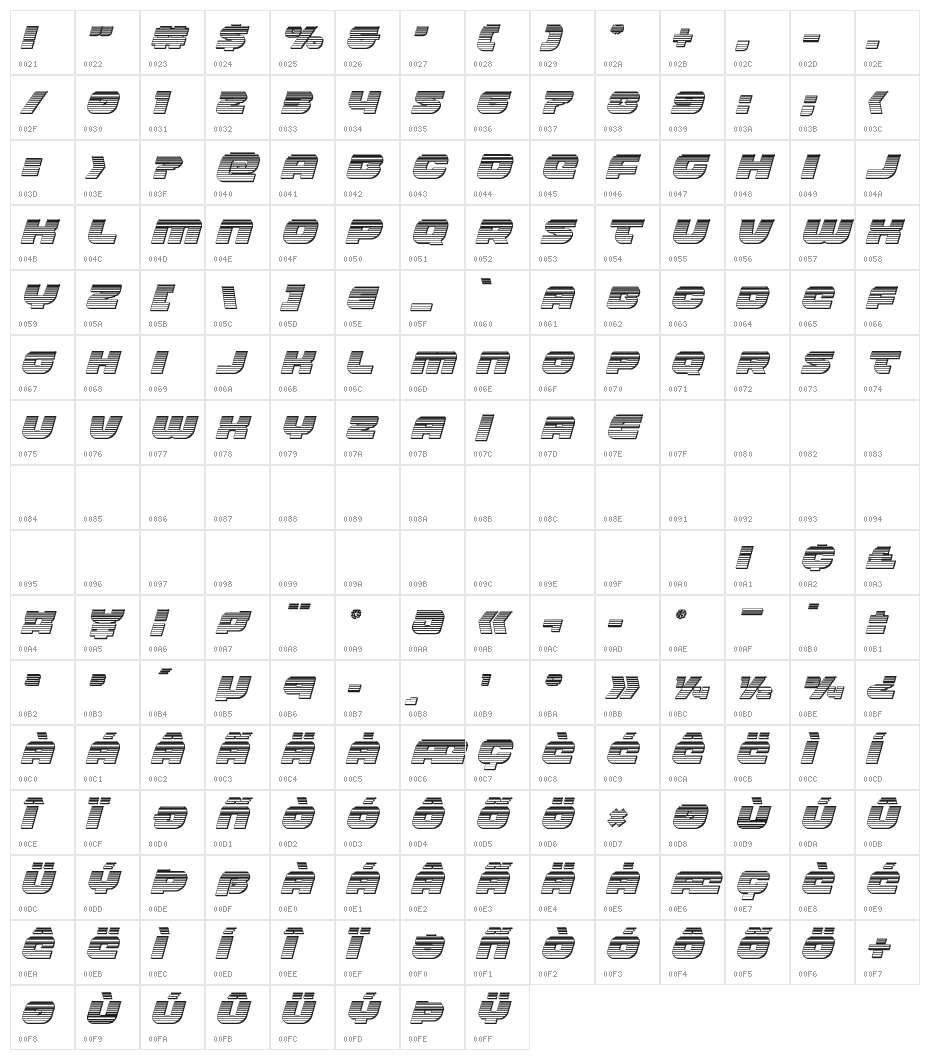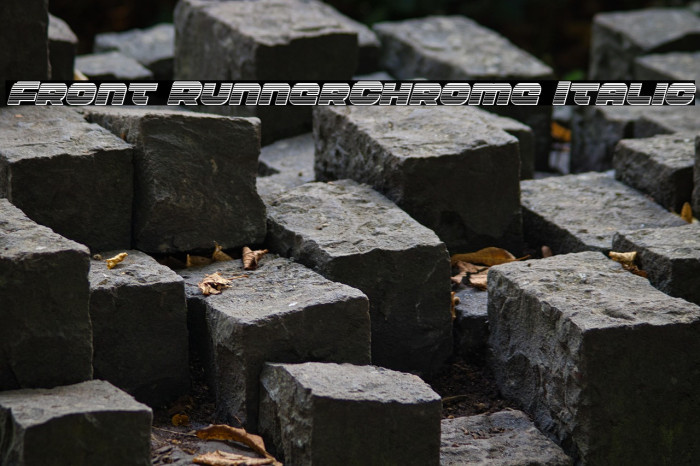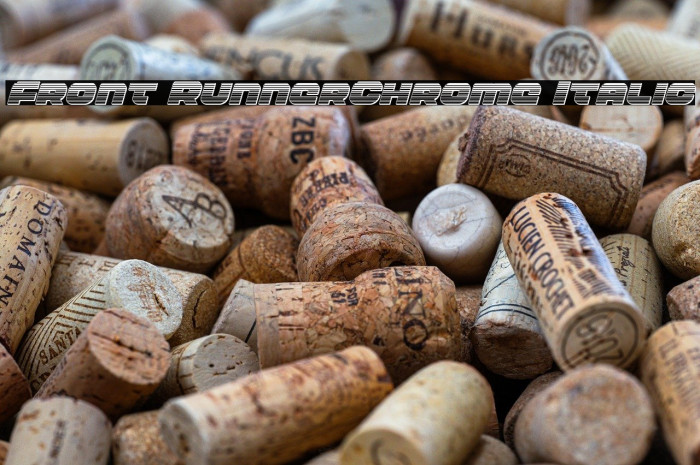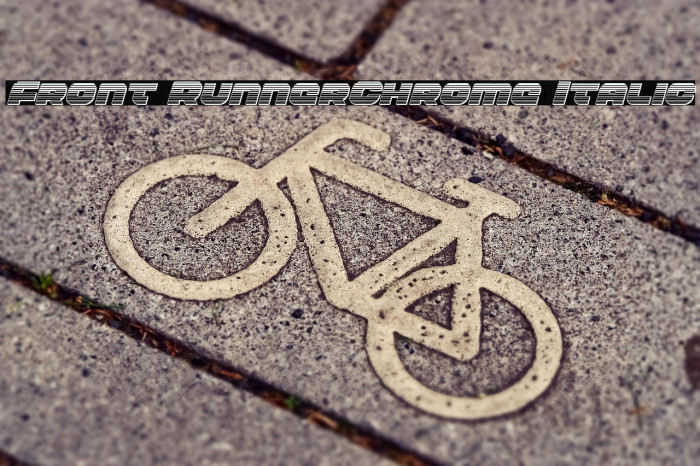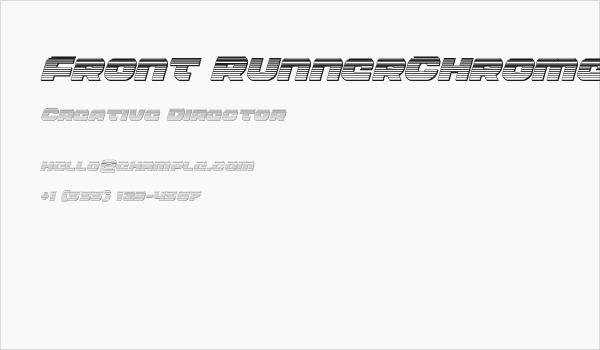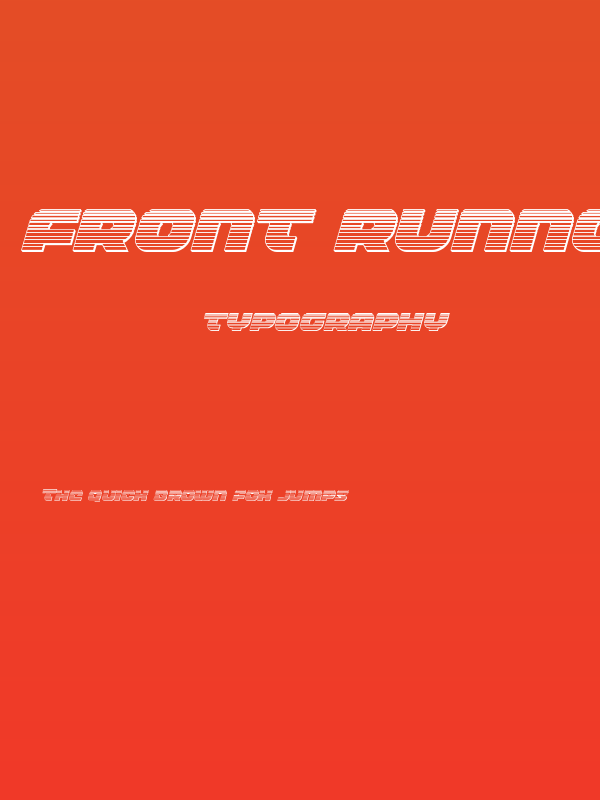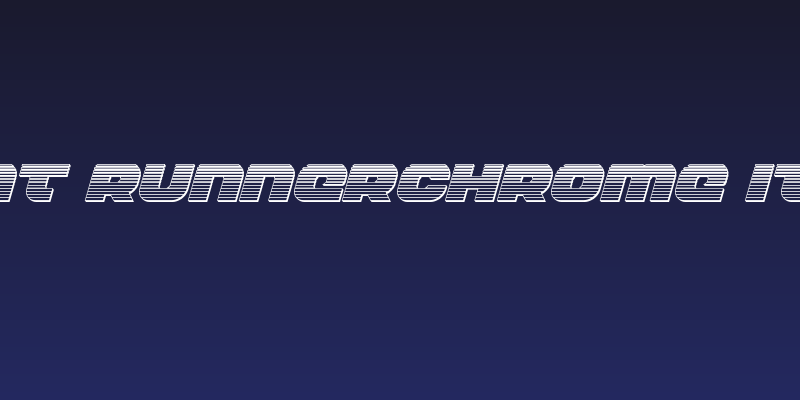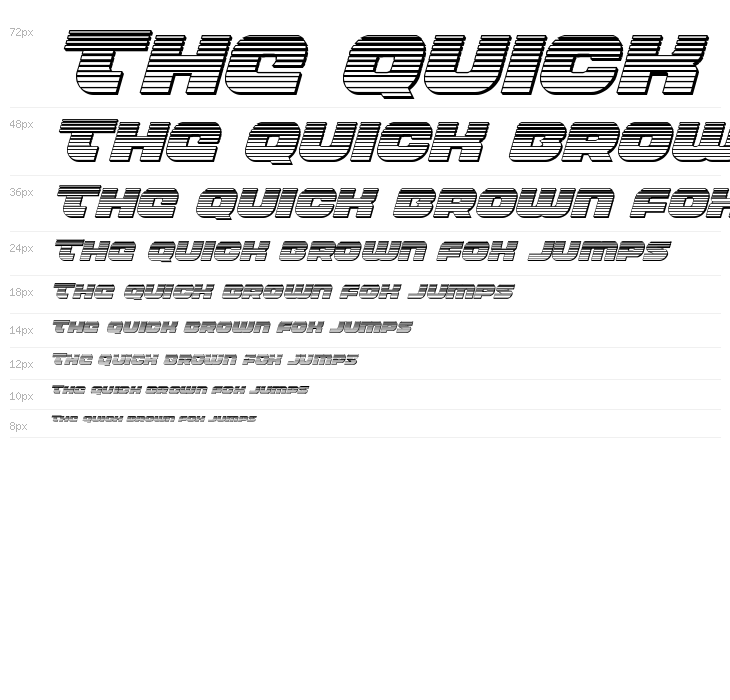
Front RunnerChrome Italic Font
Front RunnerChrome Italic Description
This font features a bold, futuristic design with a distinct chrome-like appearance. The characters are composed of multiple horizontal lines that create a sense of movement and depth. Each letter and number is crafted with precision, maintaining a consistent width and height across the set. The style is reminiscent of retro-futuristic aesthetics, making it ideal for projects that require a dynamic and eye-catching look. The uppercase and lowercase letters are similar in style, with the lowercase being slightly smaller. The numbers and special characters follow the same design principles, ensuring uniformity throughout the font.
| Proposed Projects | Ideal for sci-fi themed posters, video game titles, and technology branding. |